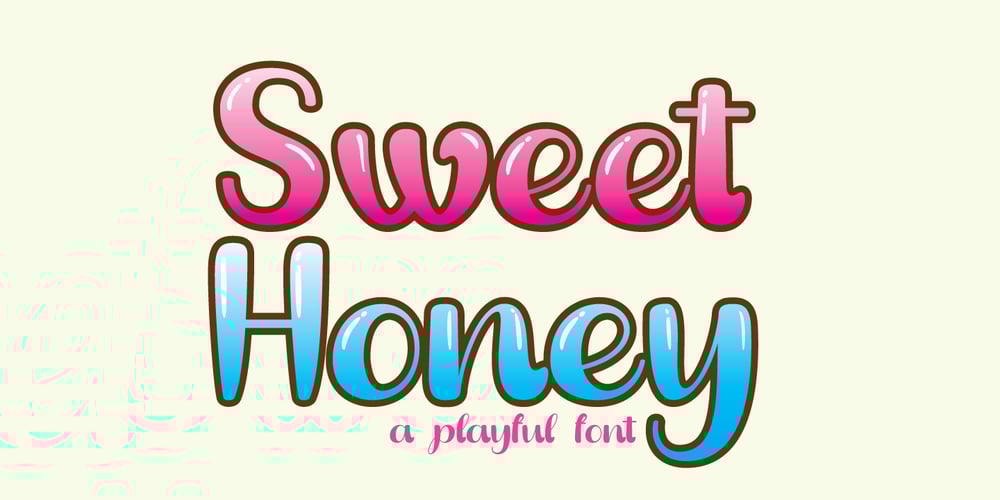
Sweet Honey Font Family was designed by Riska Kurniawan and published by BlackLotus. Sweet Honey contains 2 styles and family package options. Sweet Honey is a display font inspired by the cuteness and joy of childhood.Any design made using this font will bring out a cheerful, cute, and unique feel that blends together.Each Uppercase and Lowercase character in this font is made as unique as possible, so that this font can stand out and be easy to remember whenever people look at it.This font has 2 styles, namely regular and bubble, these styles make this font more varied so that it adds inspiration to every design that is made.Sweet Honey is perfect for use in brochures, book titles, magazines, posters, announcements, and more.